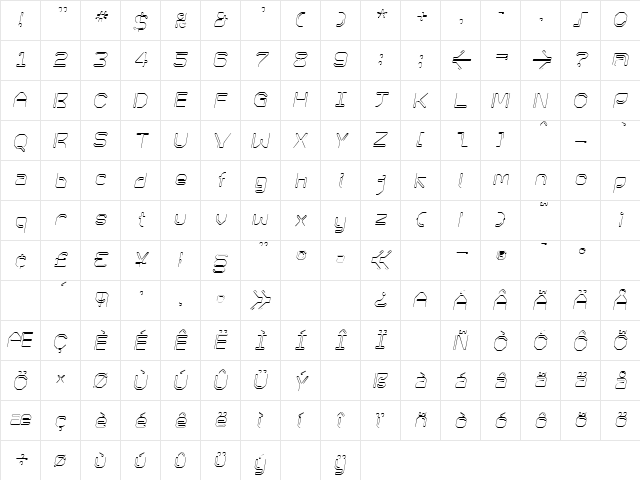
KneeonLight Italic Regular
Design Context for KneeonLight Italic Typeface
KneeonLight Italic takes a measured approach to typography — its balanced proportions and neutral character make it a reliable workhorse for both digital and print work. Its italic angle brings a sense of urgency and motion to the letterforms. The delicate stroke weight brings airiness and refinement to layouts.